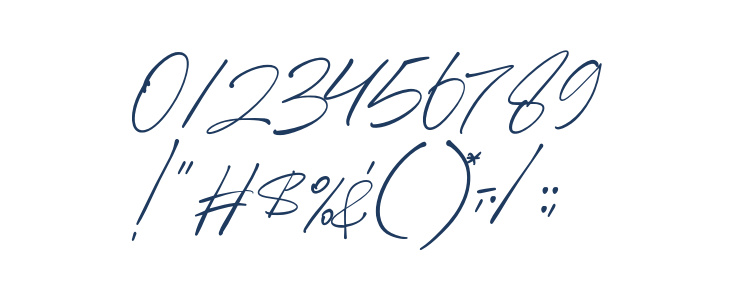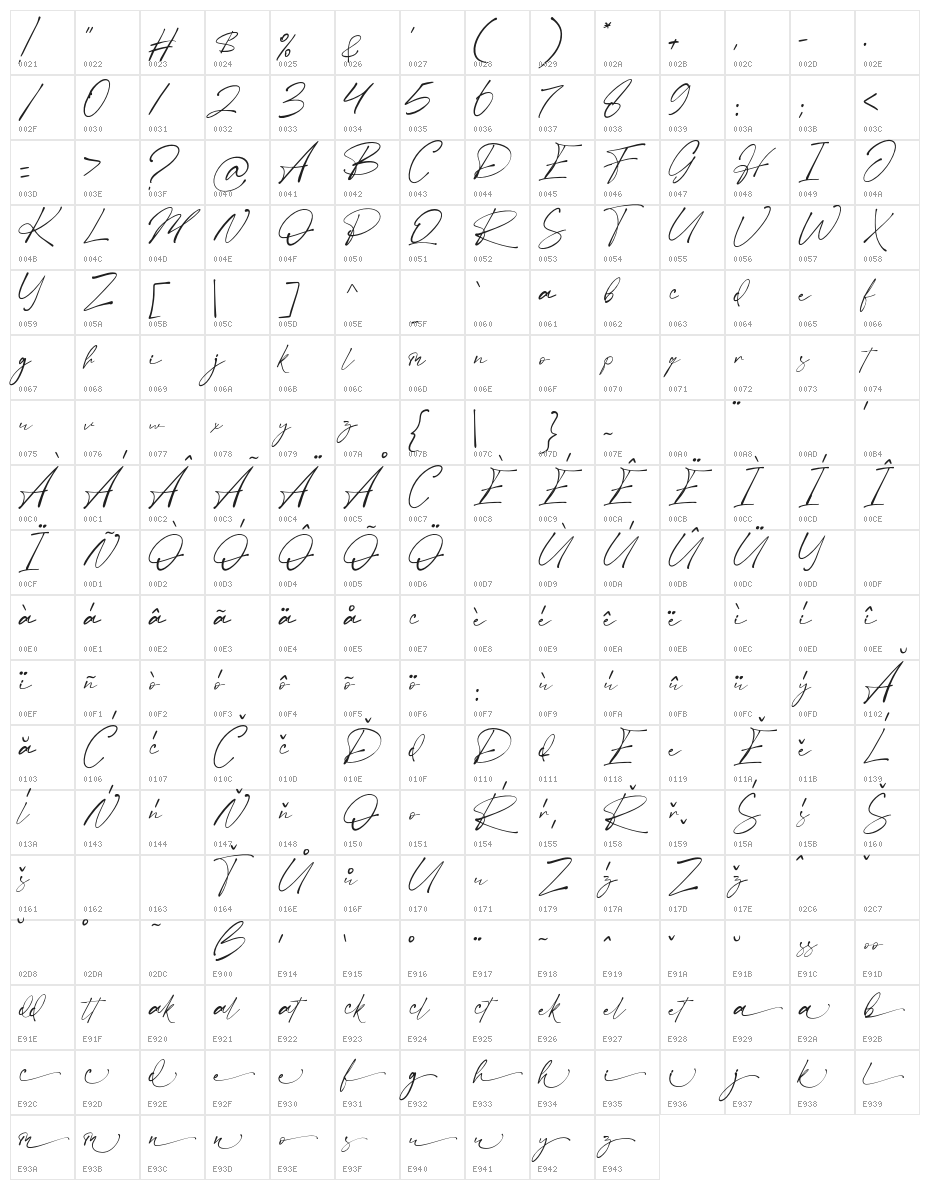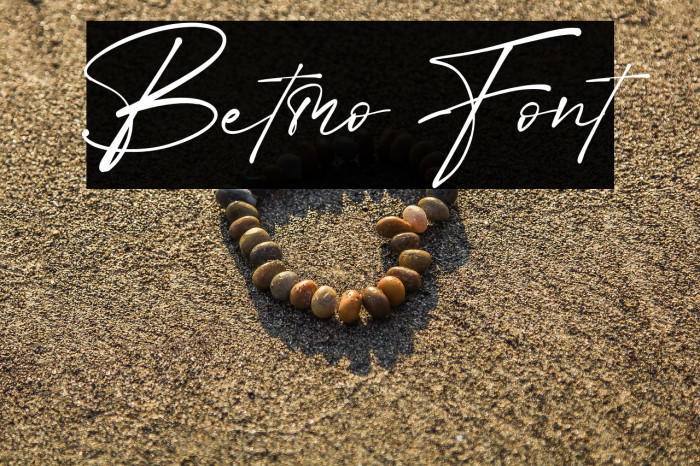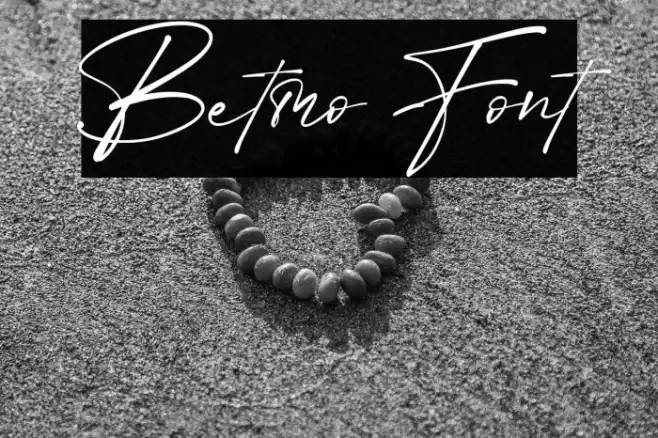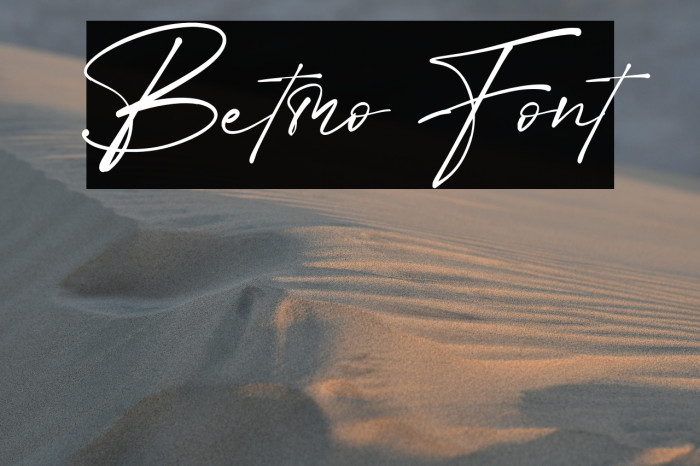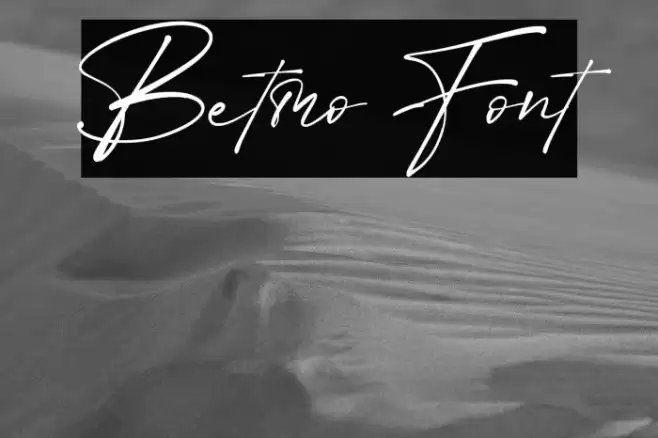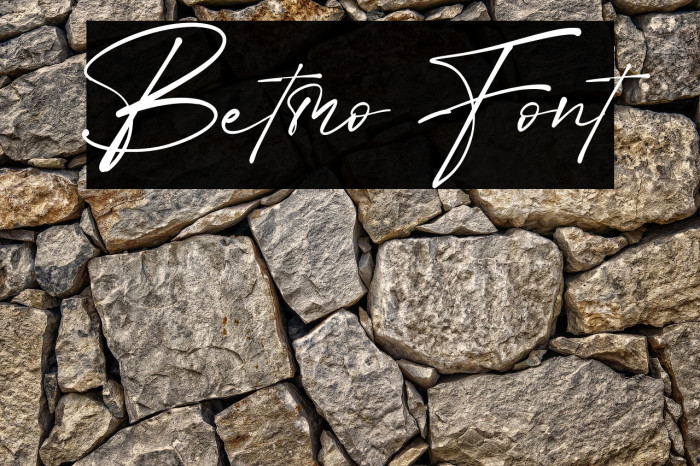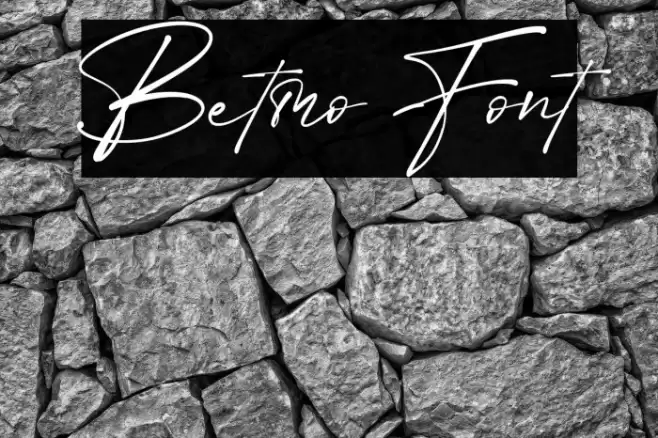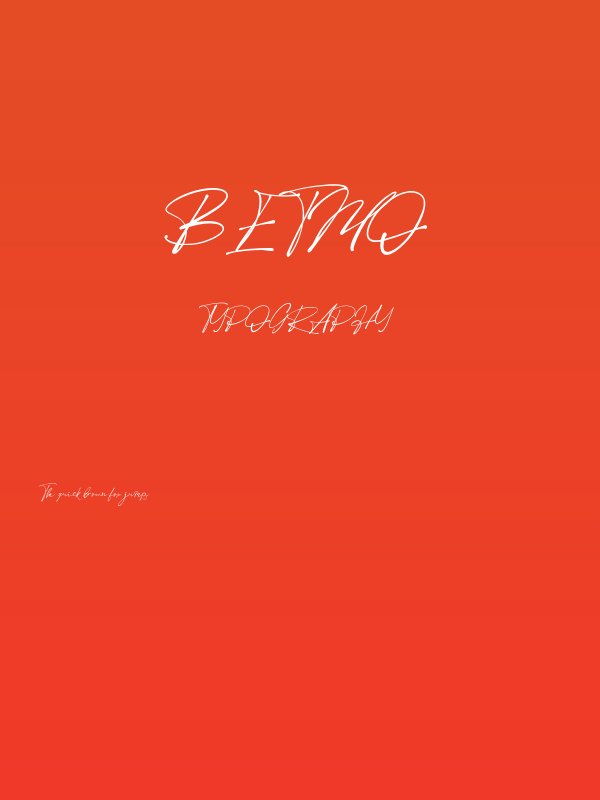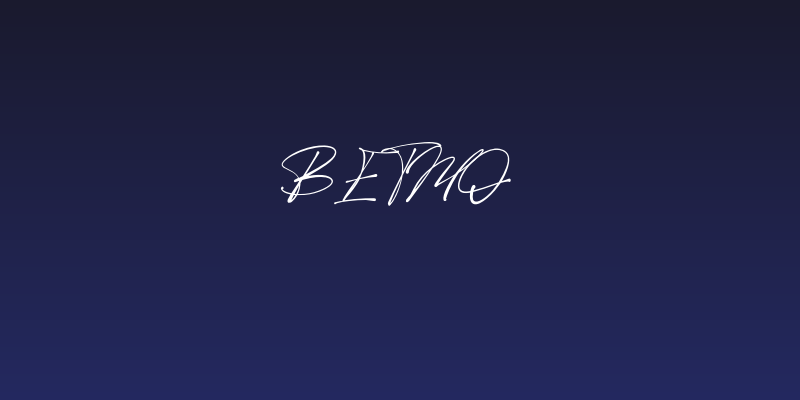
Betmo Font
Betmo Description
This font showcases an elegant and fluid script style, characterized by its sweeping, cursive strokes and a sense of movement. The uppercase letters are bold and dramatic, with exaggerated loops and flourishes, while the lowercase letters maintain a more delicate and refined appearance. The numerals and special characters are consistent with the overall flowing aesthetic, adding a touch of sophistication. This font is ideal for projects that require a personal, handwritten touch, such as invitations, greeting cards, or branding materials that aim to convey elegance and creativity.
| Proposed Projects | Ideal for invitations, greeting cards, and branding materials. |